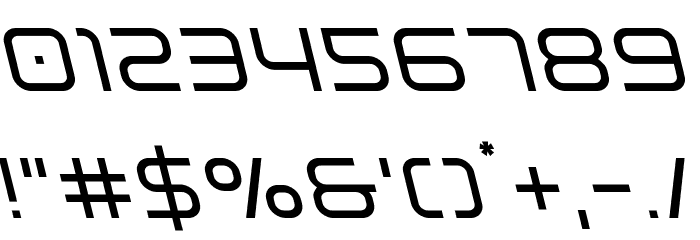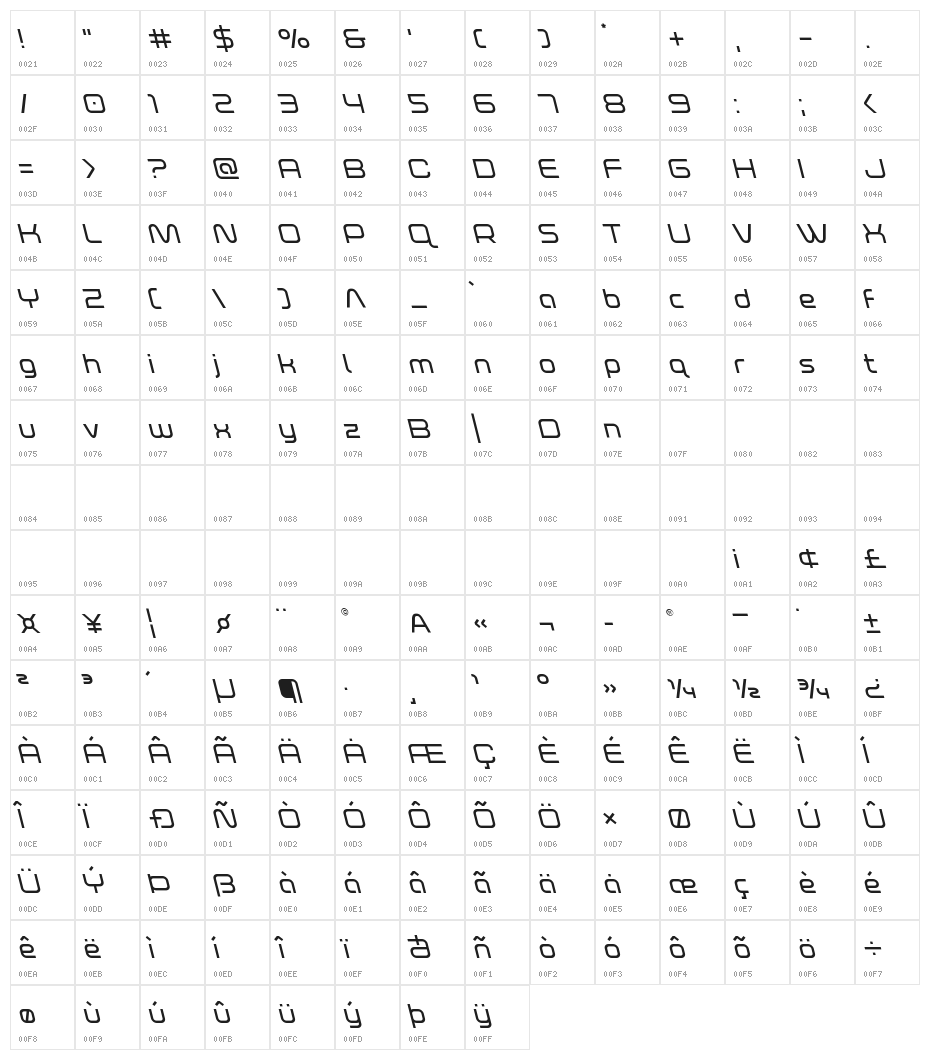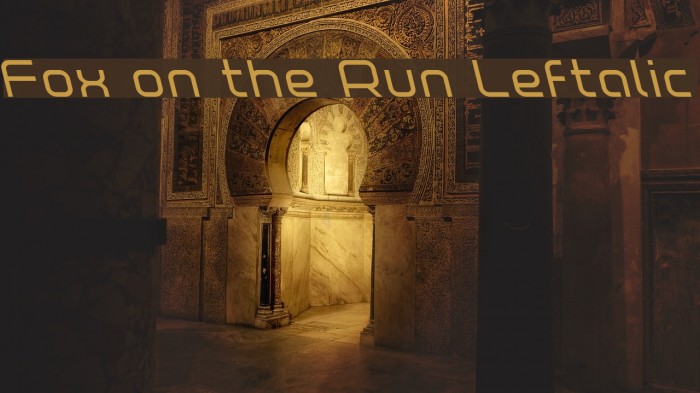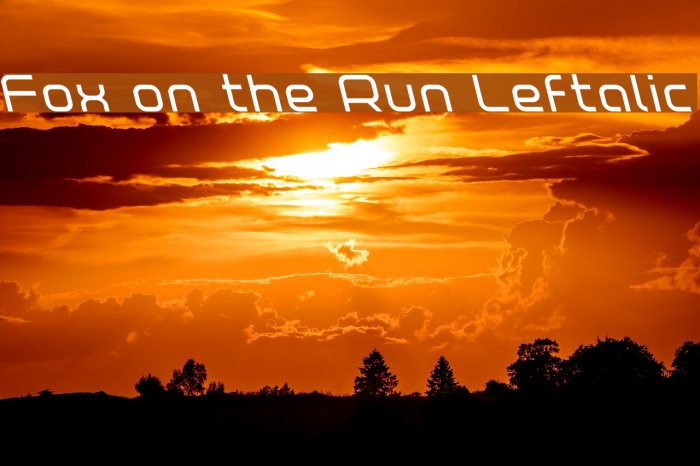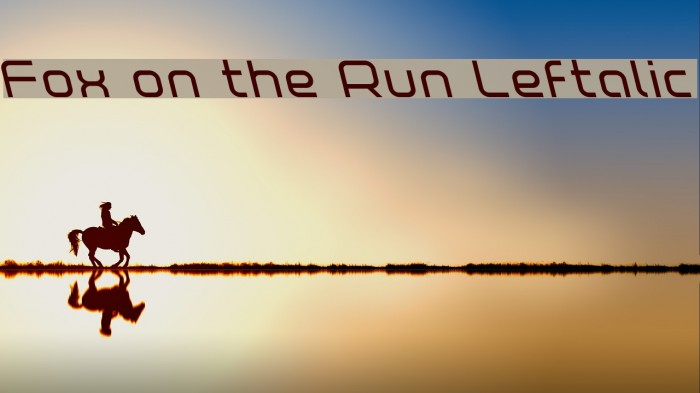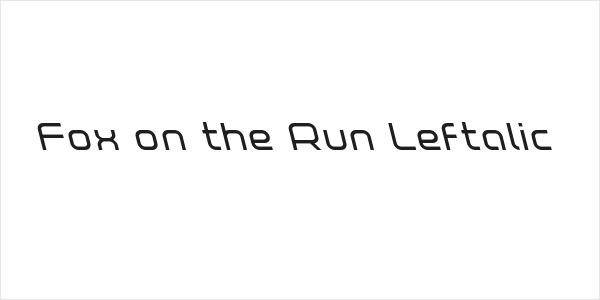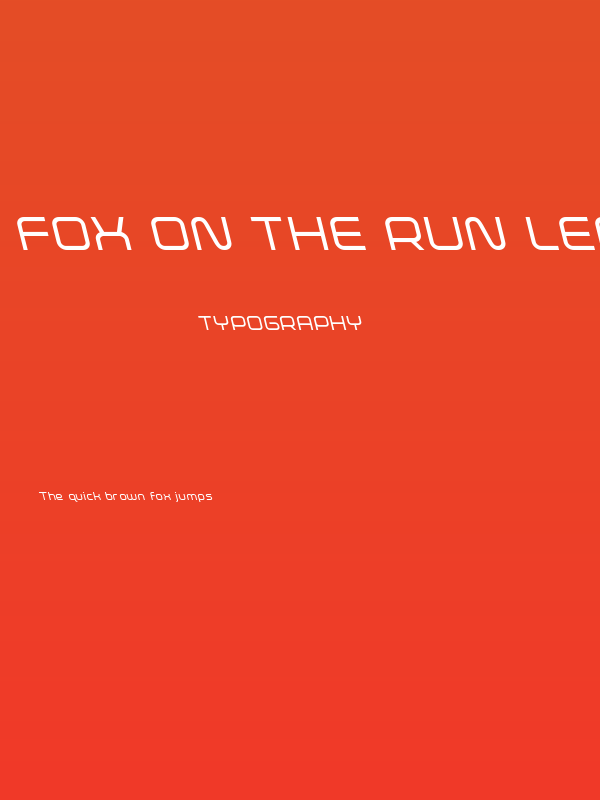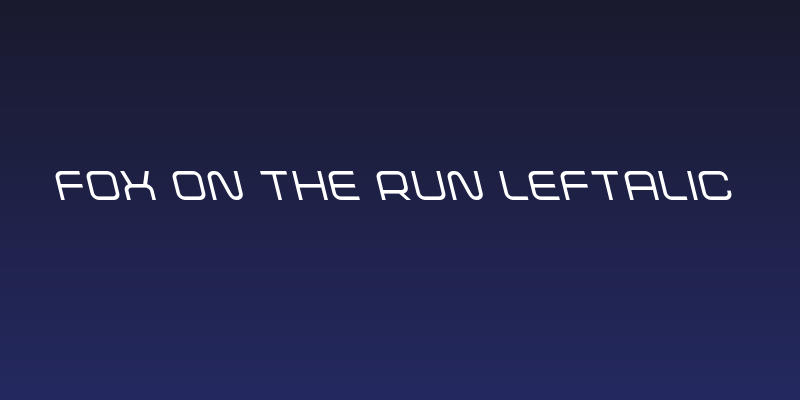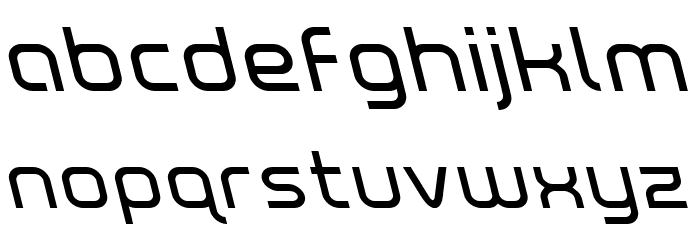
Fox on the Run Leftalic Font
Fox on the Run Leftalic Description
This font features a modern, geometric design with a slightly condensed structure. The characters are clean and minimalistic, with a consistent stroke width that gives it a uniform appearance. The rounded edges and smooth curves provide a sleek and contemporary feel, making it suitable for digital and print media. The uppercase and lowercase letters maintain a harmonious balance, while the numerals and special characters are designed to complement the overall style. This font is versatile and can be used in various design projects that require a modern and professional look.